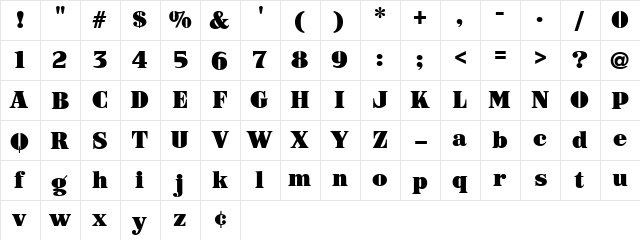
ARB-187 Moderne Caps AUG-47 CAS Regular
| Foundry | The Fontry |
ARB-187 Moderne Caps AUG-47 CAS takes a measured approach to typography — its balanced proportions and neutral character make it a reliable workhorse for both digital and print work.